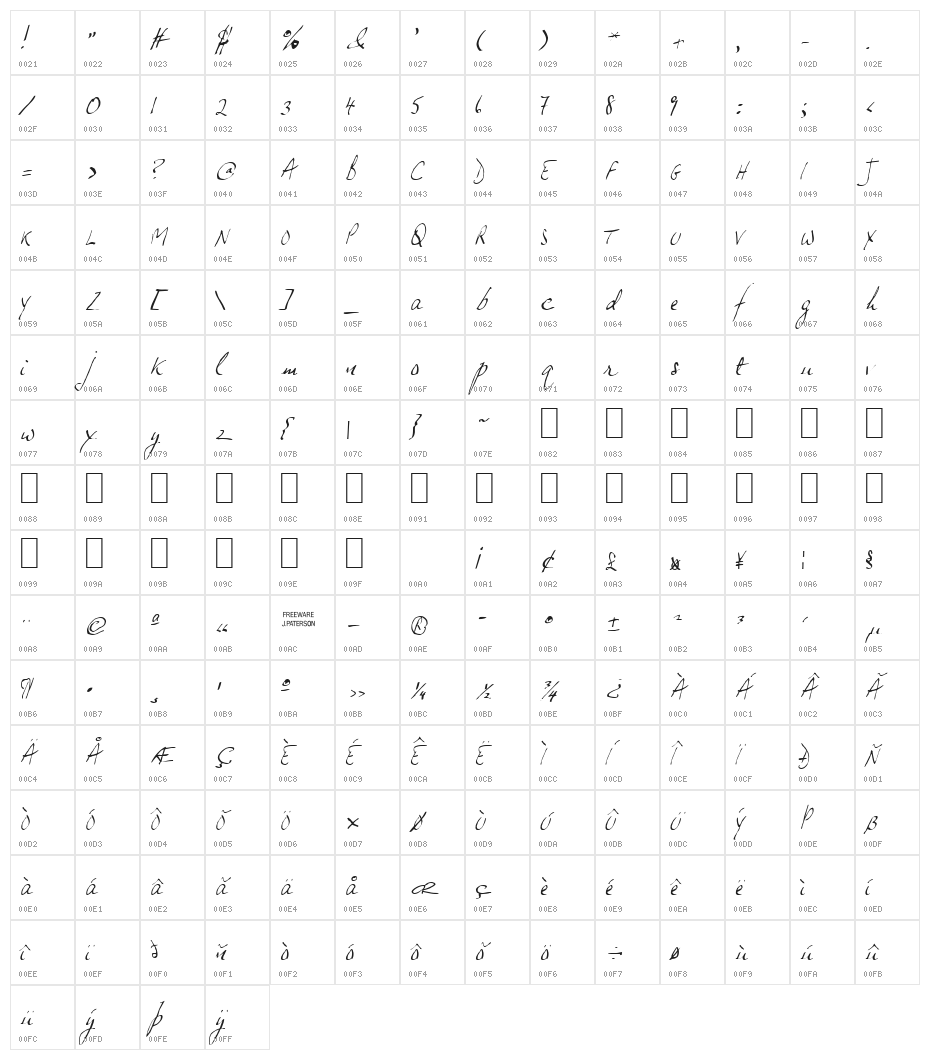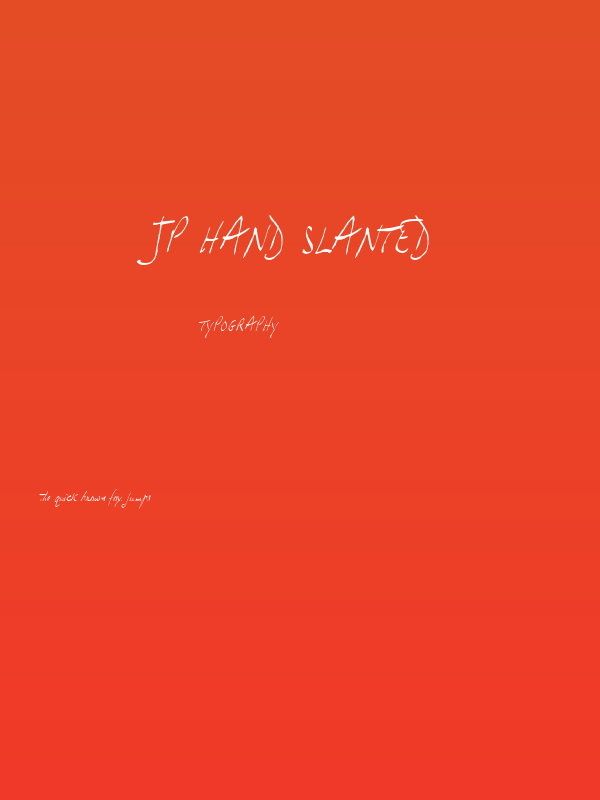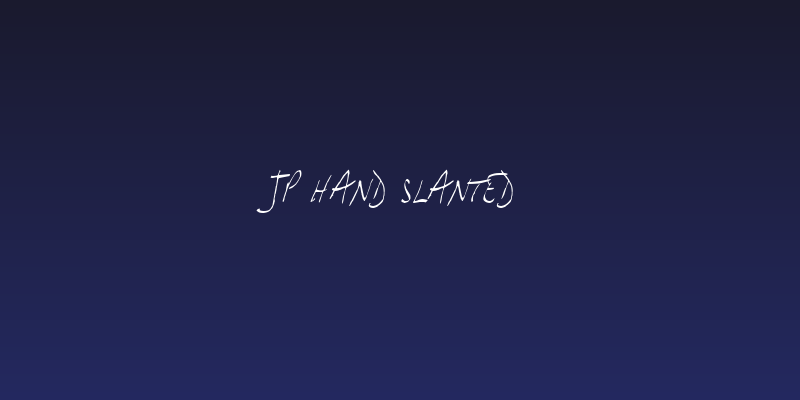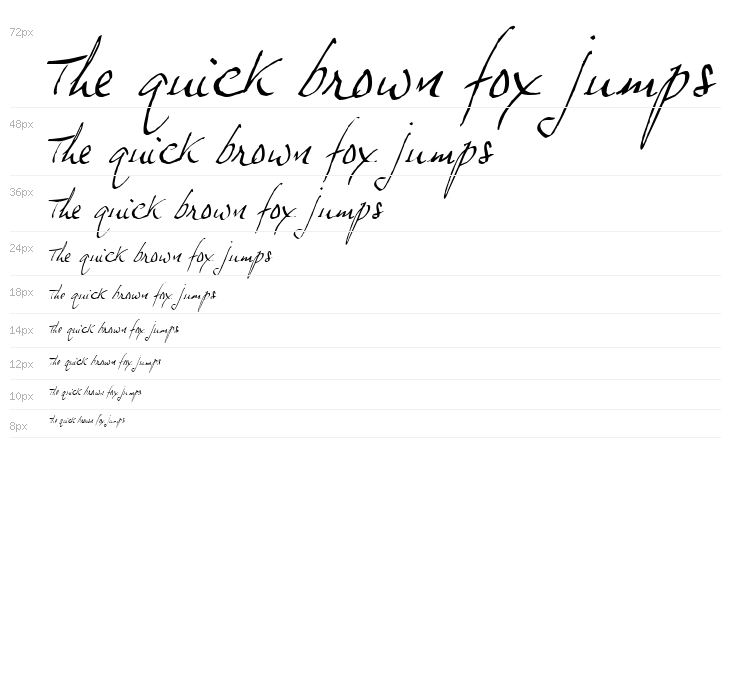
JP Hand Slanted Font
JP Hand Slanted Description
This font exhibits a dynamic and expressive handwritten style, characterized by its slanted and fluid strokes. The letters are crafted with a natural flow, giving an impression of personal touch and creativity. The uppercase letters maintain a consistent height, while the lowercase letters vary slightly, adding to the organic feel. The numerals are distinct and clear, matching the overall style of the alphabet. Special characters are well-integrated, maintaining the same slanted and freeform appearance. The font's informal and artistic nature makes it suitable for projects that require a personal or creative touch.